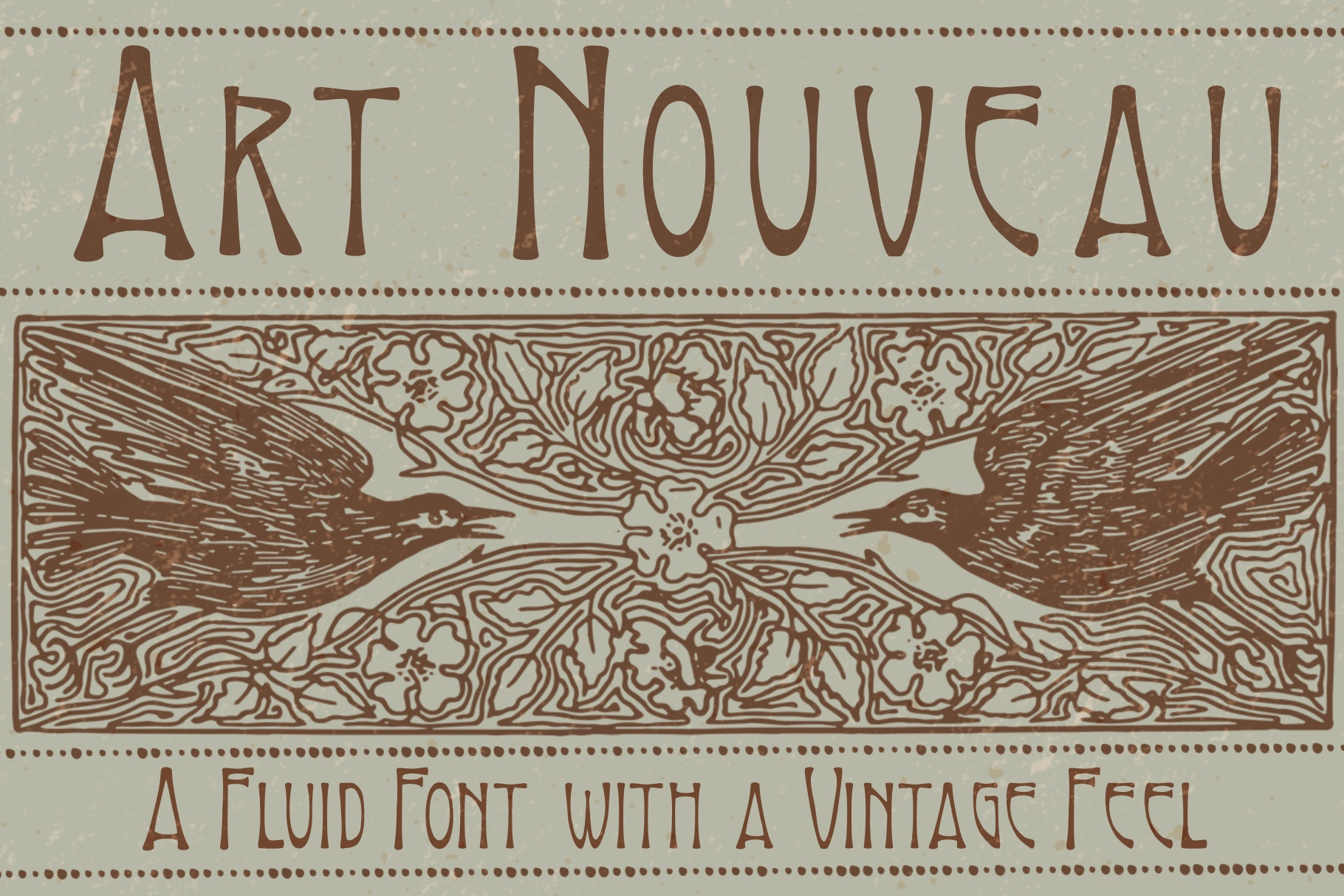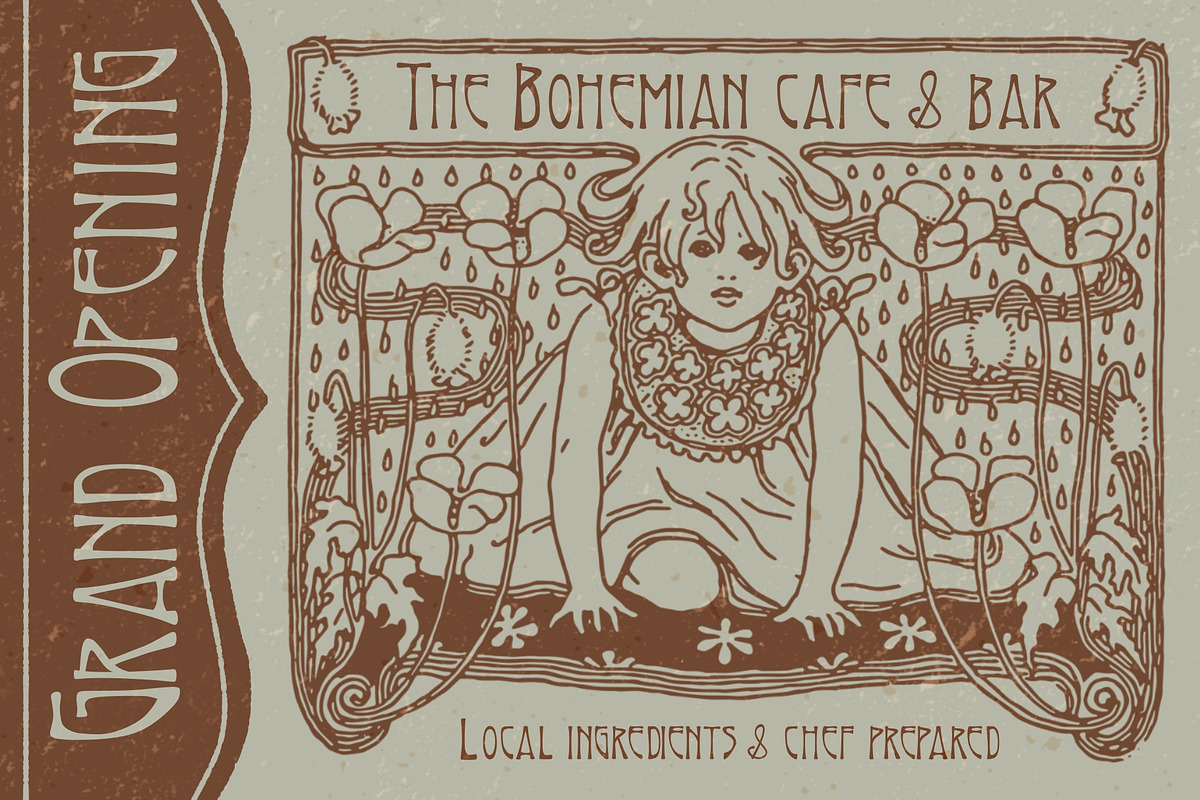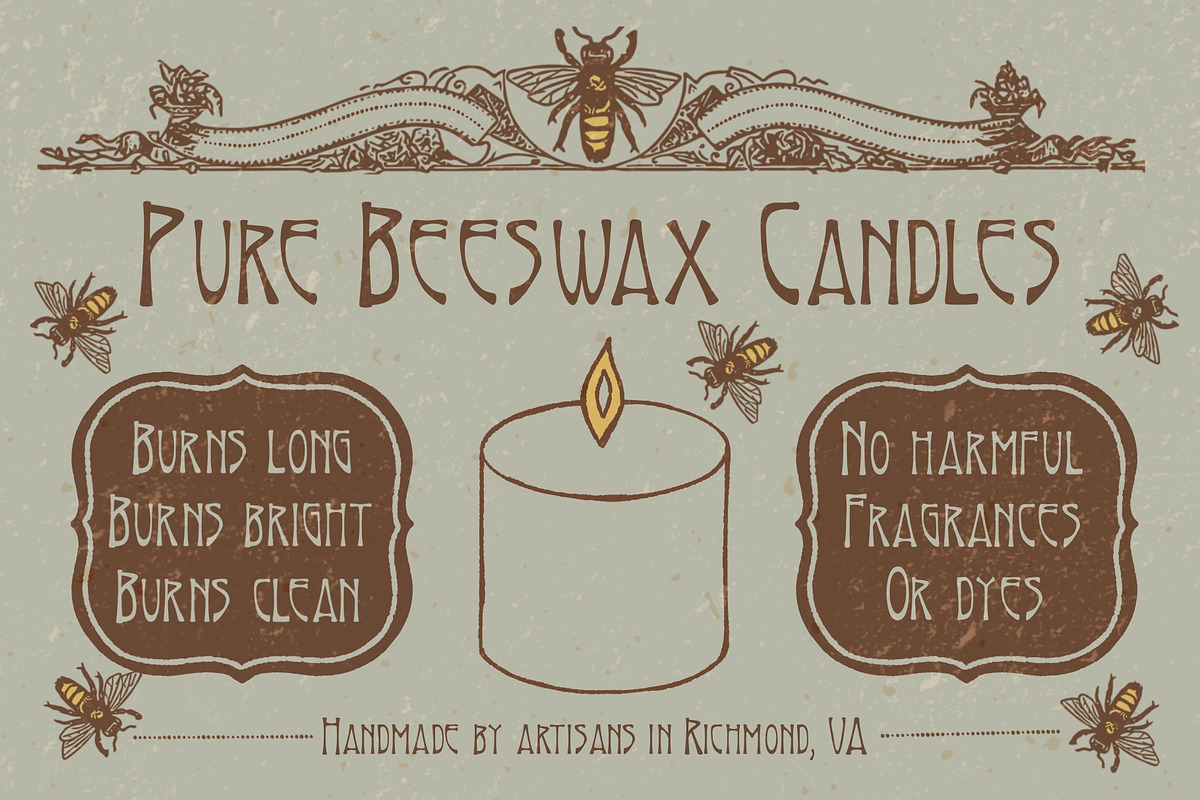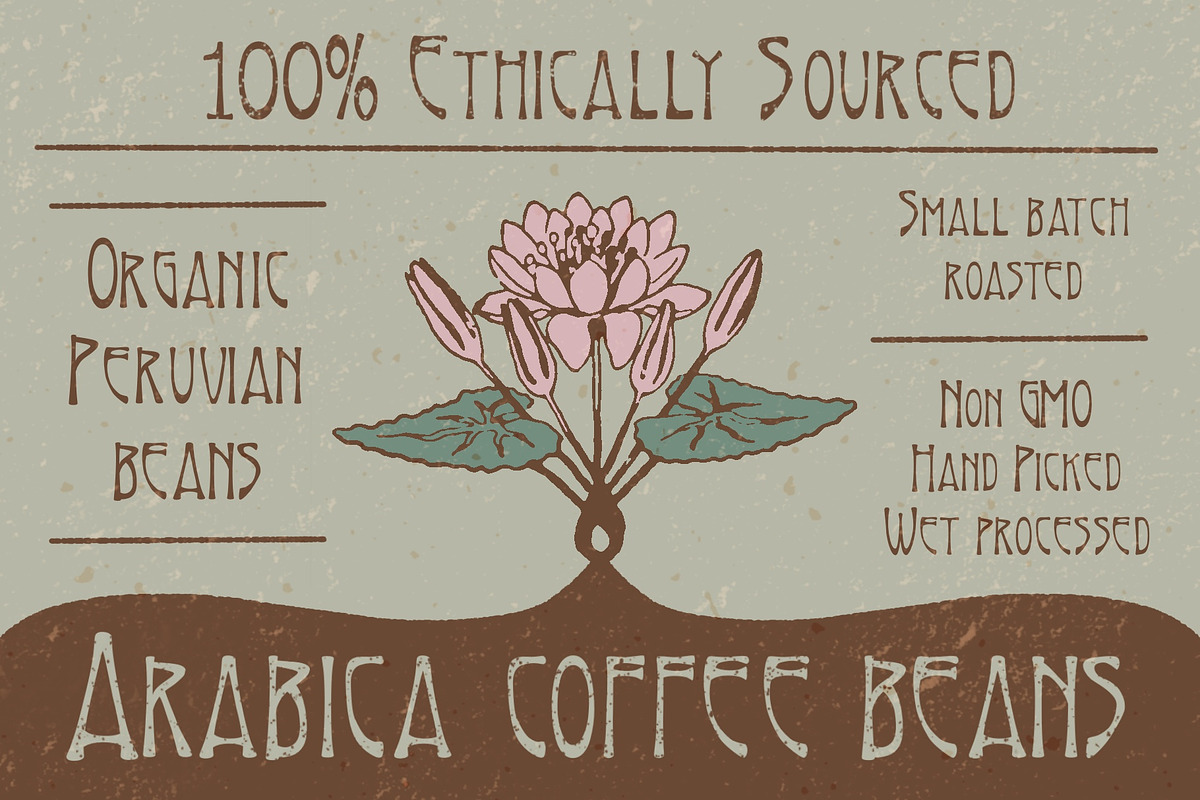
Art Nouveau Font
This fluid art nouveau style font is perfect for projects with a vintage feel. Each letter was hand drawn by me, so the font has a playful yet professional look. Perfect for food labels, menus, invitations, and a wide range of products!